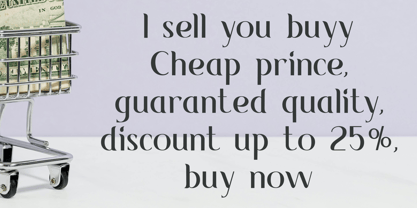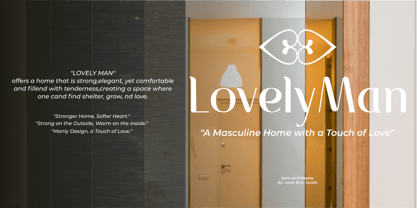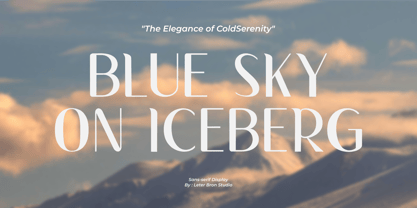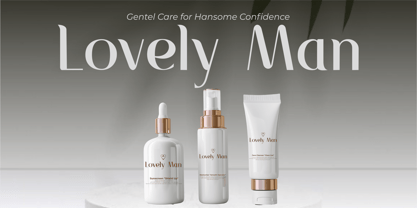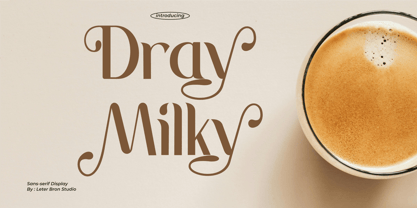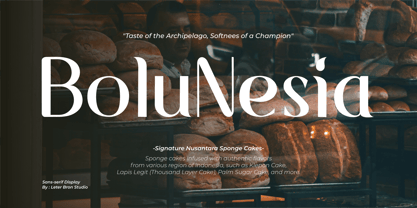
Dray Milky
The Dray Milky Font Family was designed by Firman Satrio and published by Letter Born Studio. Dray Milky contains 1 styles. More about this family
Meet Dray Milky, a modern sans serif font with soft character and bold letterforms. Designed with a blend of simplicity and style, Dray Milky delivers a clean, friendly, and professional look all in one.
This font is perfect for brands that want to appear modern yet approachable—ideal for creative startups, product packaging, editorial design, websites, and stylish social media content.